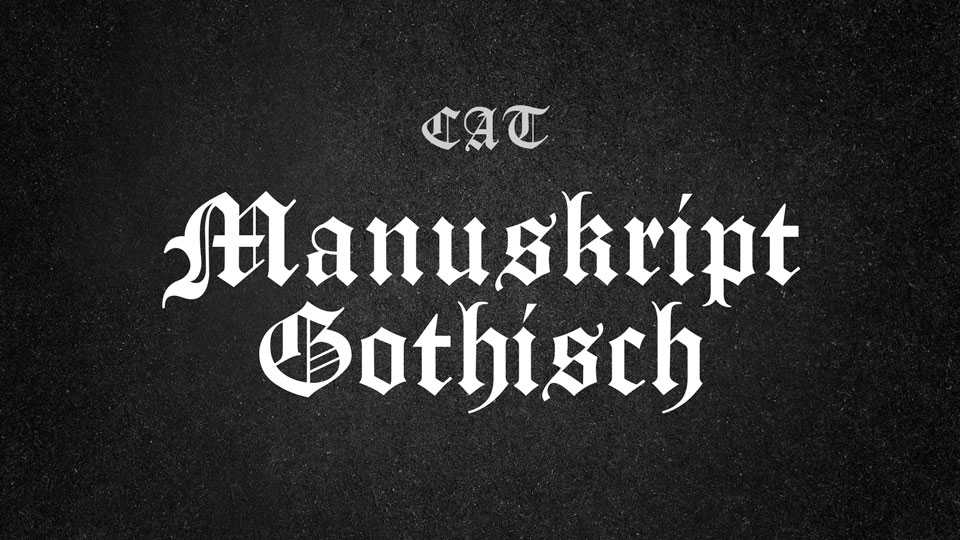
Download Manuskript Gothisch font, a traditional blackletter typeface closest to Old English. Manuskript Gothisch fits perfectly for Victorian–looking designs but it is also suitable for any layouts which need blackletter.